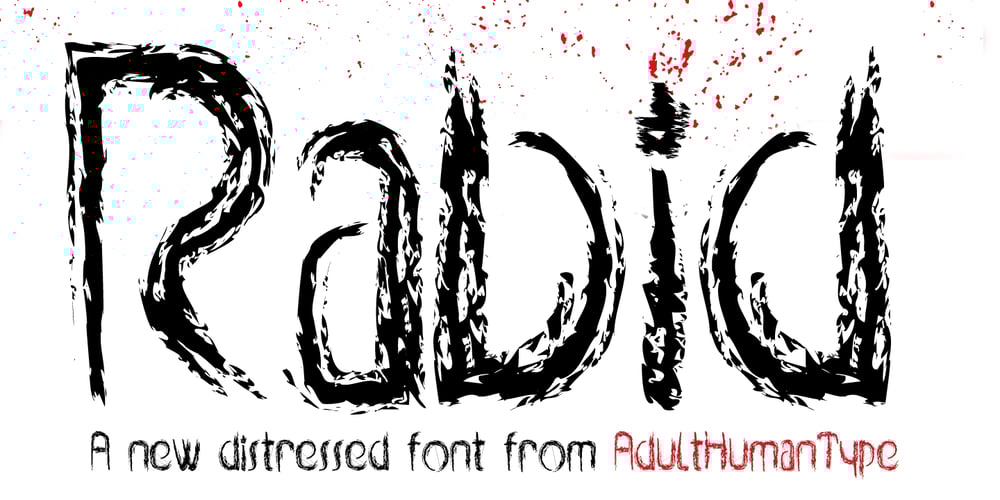
Rabid
Rabid font
Rabid Font Family was designed by published by AdultHumanMale. Rabid contains 1 styles and family package options. Rabid is an inky, messy, super distressed display font. It’s part charcoal, part chalk strokes, add a splash a of red and it starts to look like blood. Why SO Serious? It has about 200 glyphs including all those extra pesky foreign features. O Hope you like it.